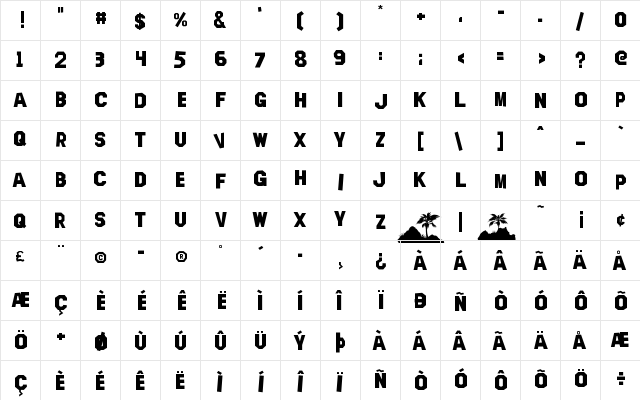
Hollywood Capital Regular
Design Context for Hollywood Capital Typeface
Hollywood Capital echoes the hand-painted signage and woodblock typography of the American frontier, with a warm, rugged personality.
A natural fit for craft spirits, ranch branding, rodeo events, and Americana-inspired design work.
Font Pairing: Combine Hollywood Capital with a simple slab or neutral sans — period-accurate companions reinforce the vintage feel without competing for attention.
Pro Tip: Use Hollywood Capital for short, impactful bursts of text — it shines in poster headlines and product names rather than extended copy.